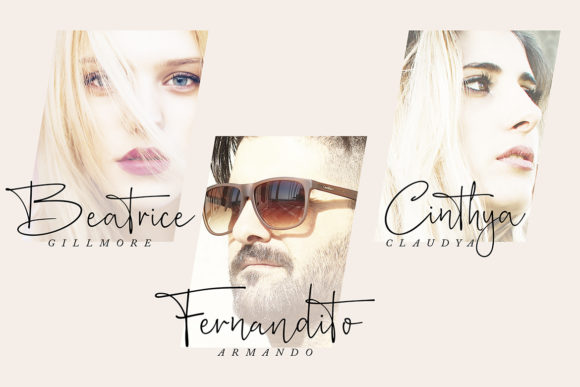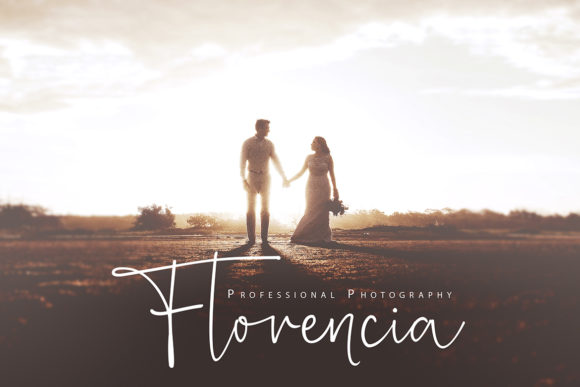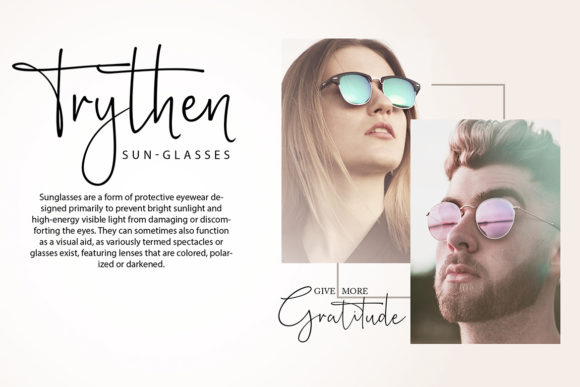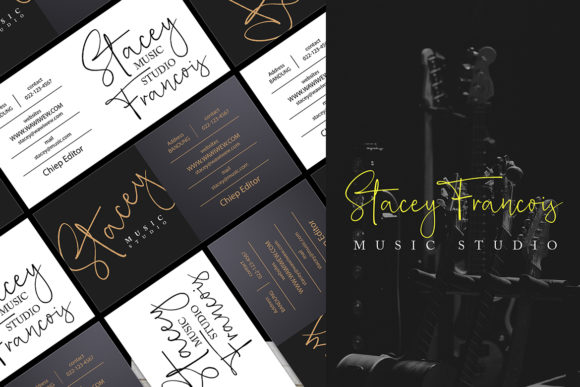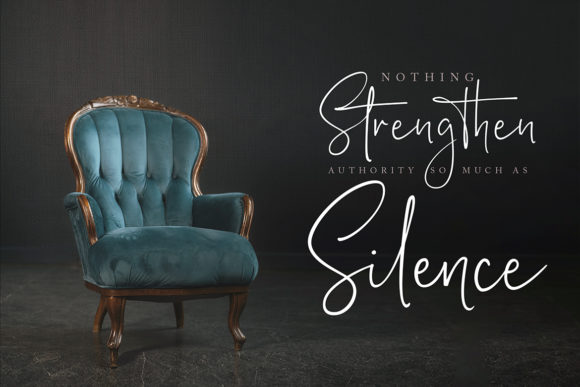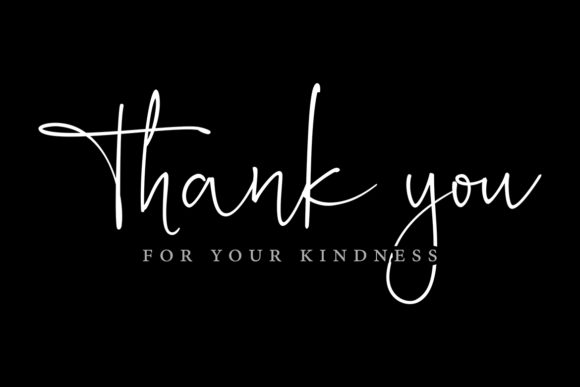
Introduction to Silently Font
As a designer, have you ever found yourself stuck in a creative rut, unable to bring your vision to life? It’s a frustrating feeling, but one that’s easily solved with the right design resource. For me, it was the discovery of the Silently Font that sparked a new wave of inspiration. Its unique, hand-drawn aesthetic immediately captured my attention, and I knew I had to share it with fellow creatives.
With its wide, flowing letters, the Silently Font exudes an authentic vibe that’s perfect for a wide range of creative projects. Whether you’re working on a branding project, designing a website, or creating a social media graphic, this high-quality font is sure to elevate your design.
Key Features of Silently Font
- High-quality design resource with a transparent background, ideal for creative projects.
- Perfect for designers and artists looking for a unique and stylish font to elevate their work.
- Features a clean and modern design with a subtle touch, making it suitable for a wide range of applications.
- Unique characteristic: The font’s subtle texture and nuanced details create a sense of depth and visual interest.
Honest Review: Silently Font
As a designer, I’m always on the lookout for high-quality design resources that can elevate my creative projects. Recently, I stumbled upon the Silently Font, and I must say it’s a gem. The font is sleek, modern, and perfect for anything from branding to editorial design.
- High-quality design with a modern aesthetic
While the Silently Font is an excellent addition to any design resource library, I do have a few caveats. The font is a bit limited in its character set, which may not be suitable for complex design projects.
Overall, I’m thoroughly impressed with the Silently Font. Its sleek design and transparent background make it a valuable asset for any designer. If you’re looking for a high-quality font to elevate your creative project, I highly recommend giving the Silently Font a try.
Silently Font: A High-Quality Design Resource
Silently Font is suitable for various design projects, including logos, business cards, and brochures. Its transparent background makes it easy to combine with other design elements.